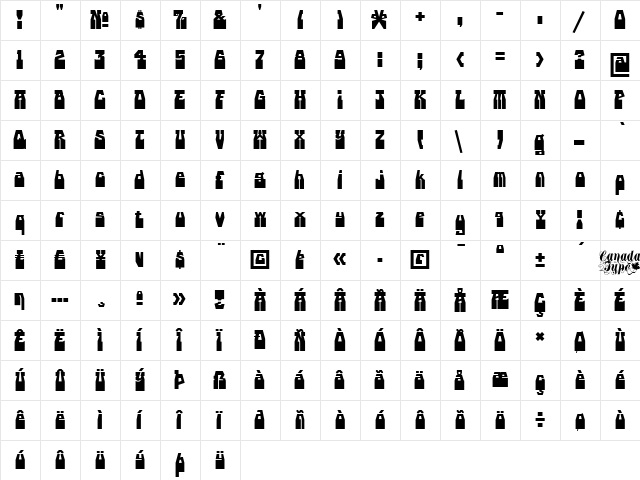
Guillotine Regular
| Foundry | Canada Type |
| Designer | Rebecca Alaccari |
Design Context for Guillotine Typeface
Guillotine is a composed and adaptable typeface that performs quietly and consistently across a wide range of design contexts.